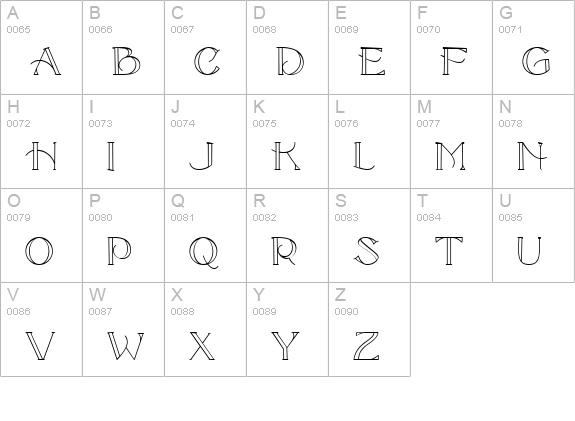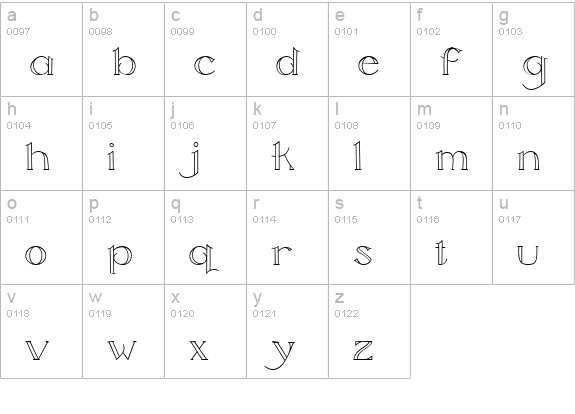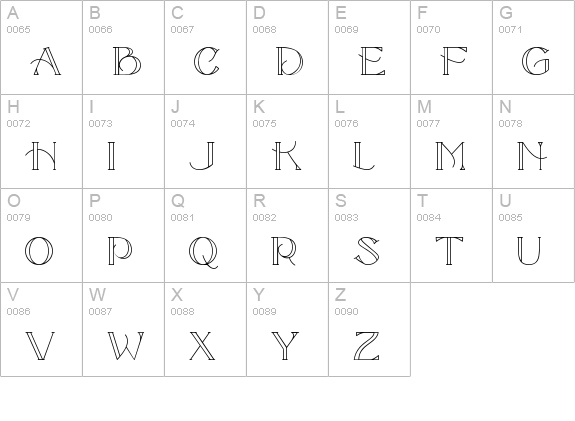
CK Timeless Font Details
CK Timeless font is a classic and elegant typeface that exudes sophistication and timelessness. With its clean lines and graceful curves, this font is perfect for adding a touch of refinement to any project. The versatility of CK Timeless makes it suitable for a wide range of design applications, from wedding invitations to business presentations. What's even better is that CK Timeless is available for free download at FontsMarket.com. This means that you can easily access this beautiful font and use it in your designs without any cost. Don't miss out on the opportunity to enhance your projects with the timeless beauty of CK Timeless font. Download it today and elevate your designs with a touch of elegance and style.